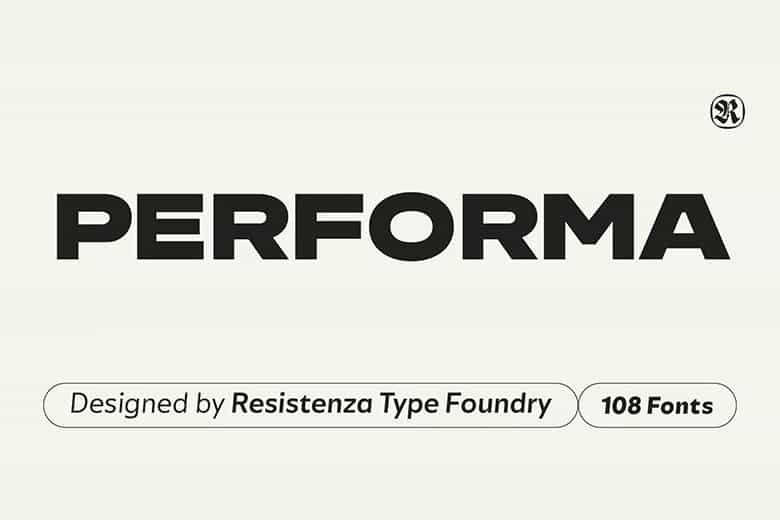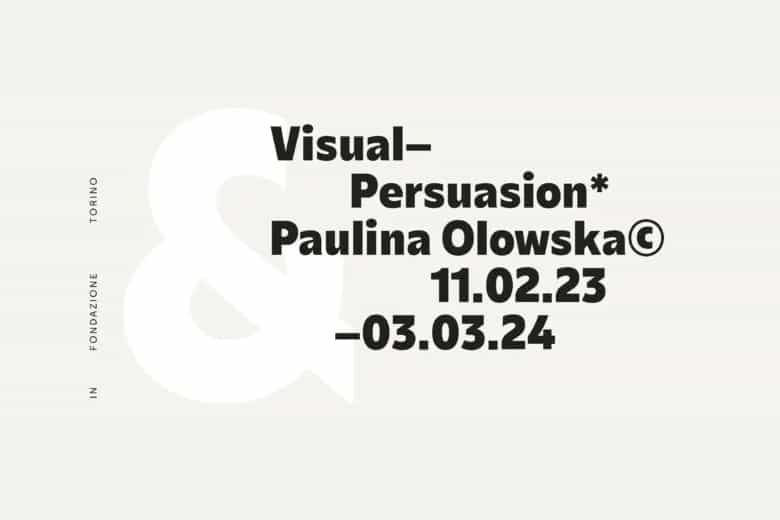
Performa is a multi-purpose sans serif typeface that combines the geometric influence of the shape with the gentle application of grotesque. With an astonishing count up to 108 fonts, Performa comes in the likes of Thin to Black and Compress to Wide fonts. This kind of flexibility makes this unit suitable for artistic and operating posts, stylistically smart and sound. Combining functionality with style,